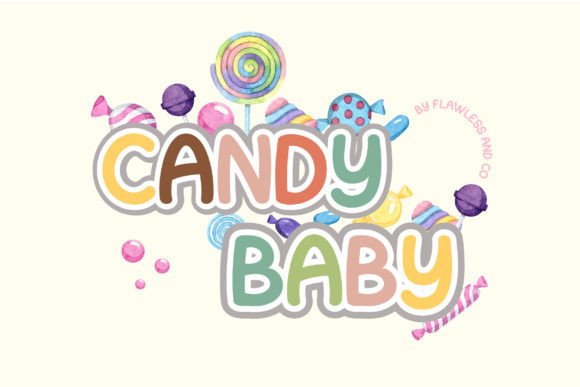
Prepare yourself to be dazzled by Candy Baby, a font that ignites the imagination and captivates the senses, designed by the talented Flawless And Co. From the moment you lay your eyes on this font, you'll be swept away by its infectious charm and irresistible appeal.
Candy Baby belongs to the sans serif font family, characterized by its clean and unadorned letterforms. But make no mistake, there's nothing ordinary about this font. Candy Baby's letterforms are infused with a vibrant energy, featuring graceful curves, playful details, and a touch of whimsy.
This font is an artistic masterpiece, a symphony of creativity that breathes life into your designs. Its letterforms dance across the page, captivating your audience with their elegance and charm. You can almost hear the laughter, feel the joy, and sense the magic as you witness Candy Baby's transformative power.
With Candy Baby, your designs will be elevated to new heights. Whether you're creating children's books, party decorations, packaging, social media posts, or any project that demands a dash of fun and personality, Candy Baby is the perfect companion.